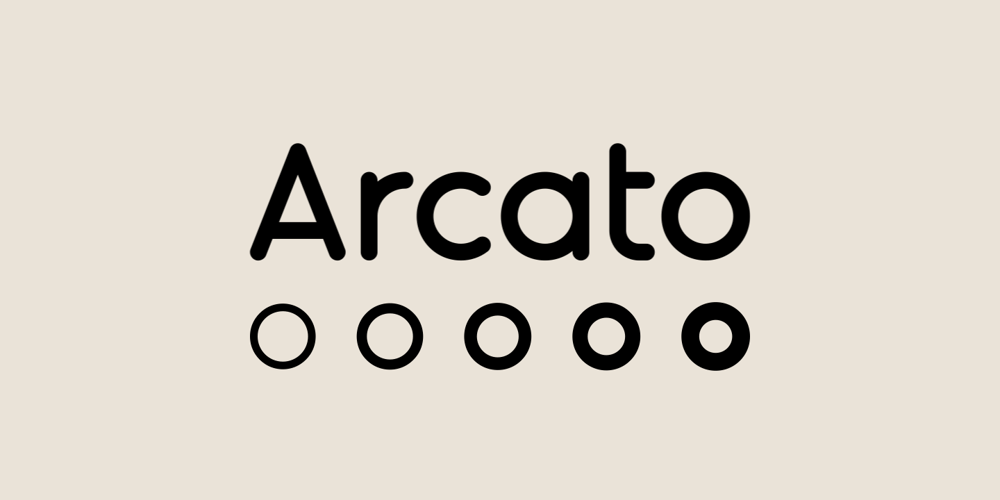
Arcato
Arcato font
Arcato Font Family was designed by Stefano Giliberti and published by Stefano Giliberti. Arcato contains 10 styles and family package options. Arcato is a font family shaped from spherical curves inspired by celestial bodies. It supports 114 languages, features a total of 508 glyphs and includes an italicized version for each of the 5 weights.